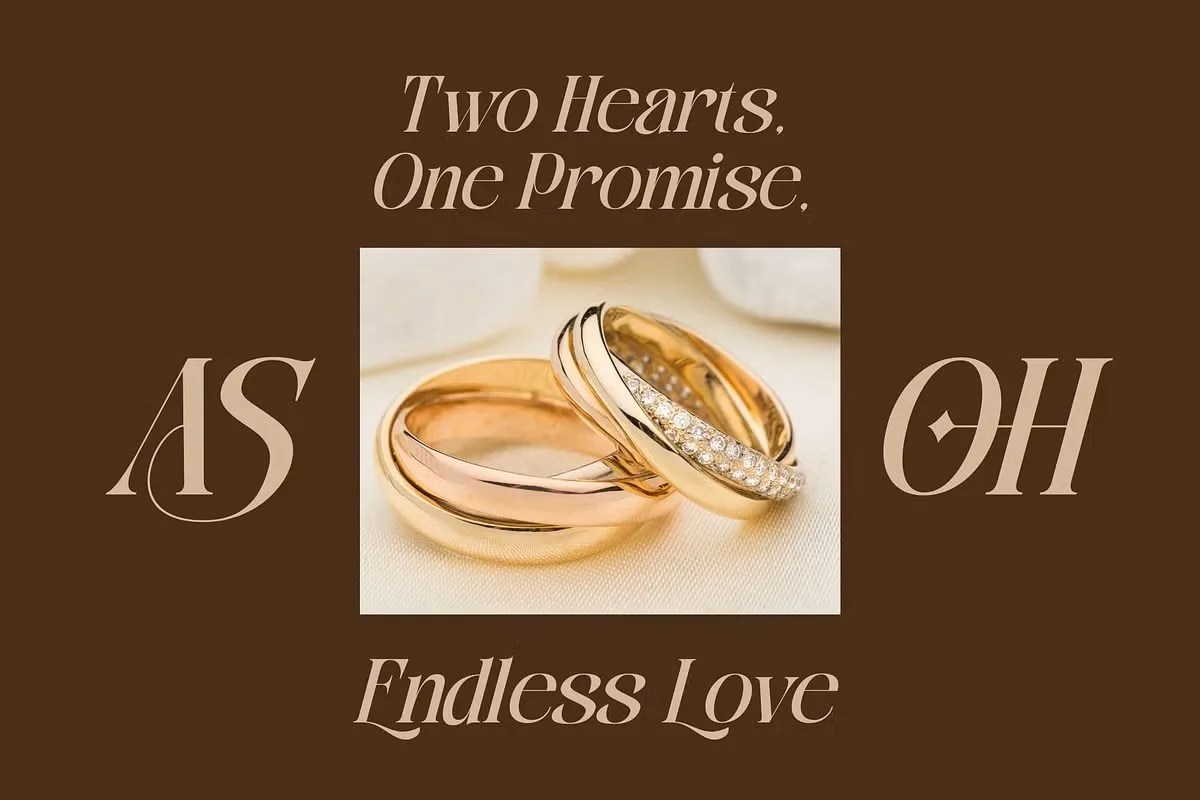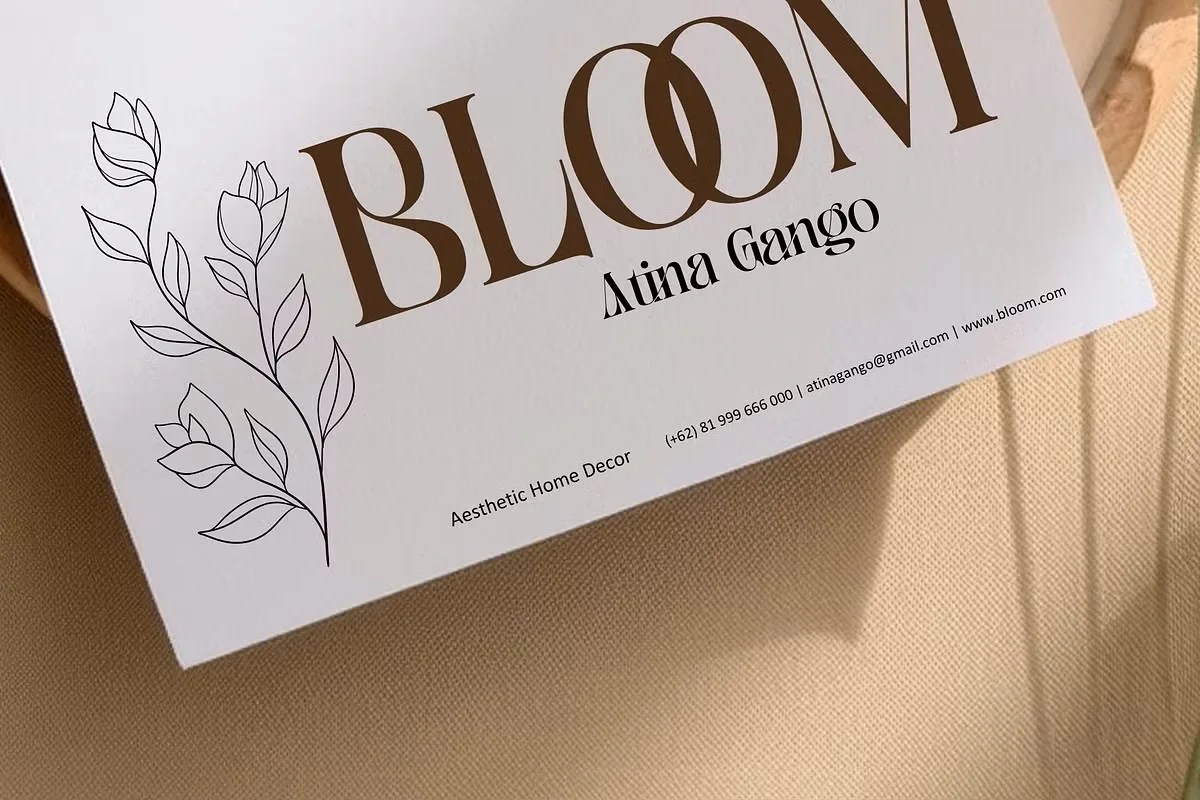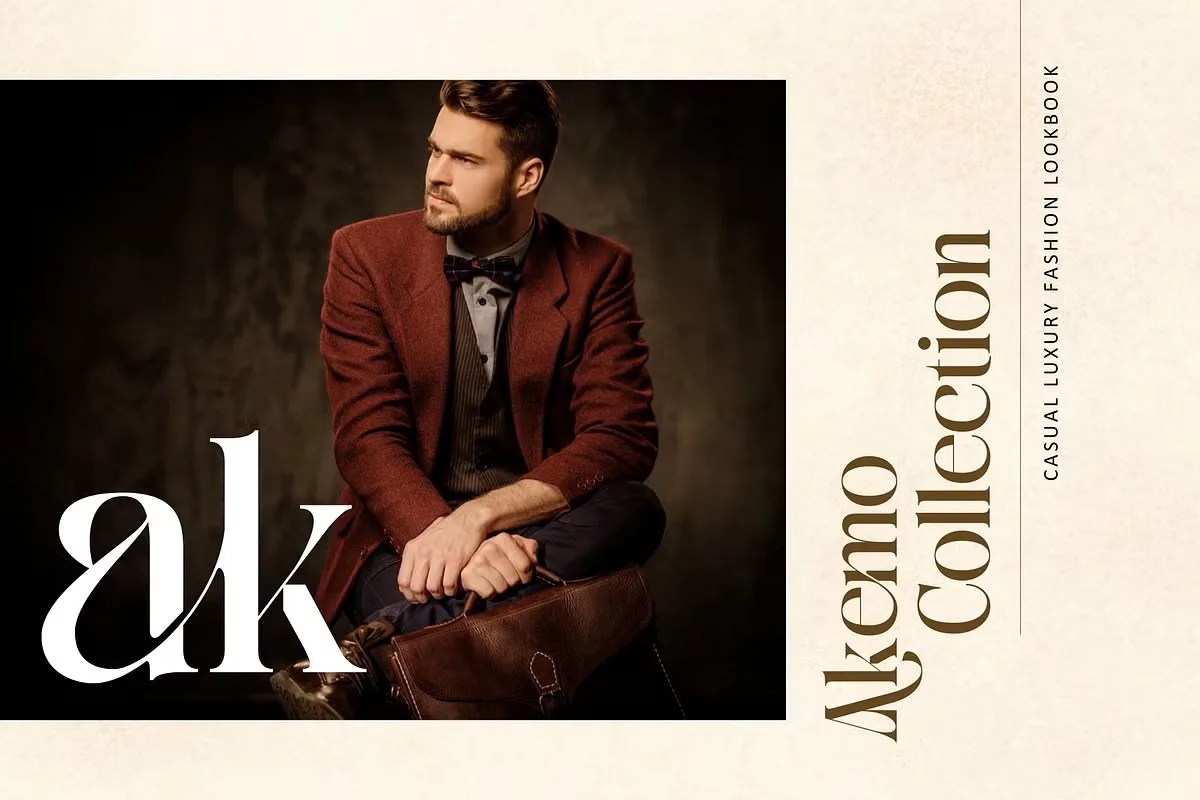
Bitho Font by Nirmana Visual is a bold and modern display font designed to make a powerful statement. With its clean geometric forms and commanding presence, Bitho is the perfect choice for designers looking to create impactful headlines, logos, posters, and branding projects that capture attention instantly.
Whether you’re designing an eye-catching magazine cover, a minimalist event poster, or unique social media graphics, this font provides the strength and clarity needed to elevate your typography. Its distinct character ensures your message is delivered with confidence and style, making it a valuable addition to any creative toolkit for personal projects.
• Bold and impactful display style
• Ideal for headlines, logos, branding, and titles
• Clean and modern letterforms
• Includes uppercase characters, numerals, and punctuation
Bitho